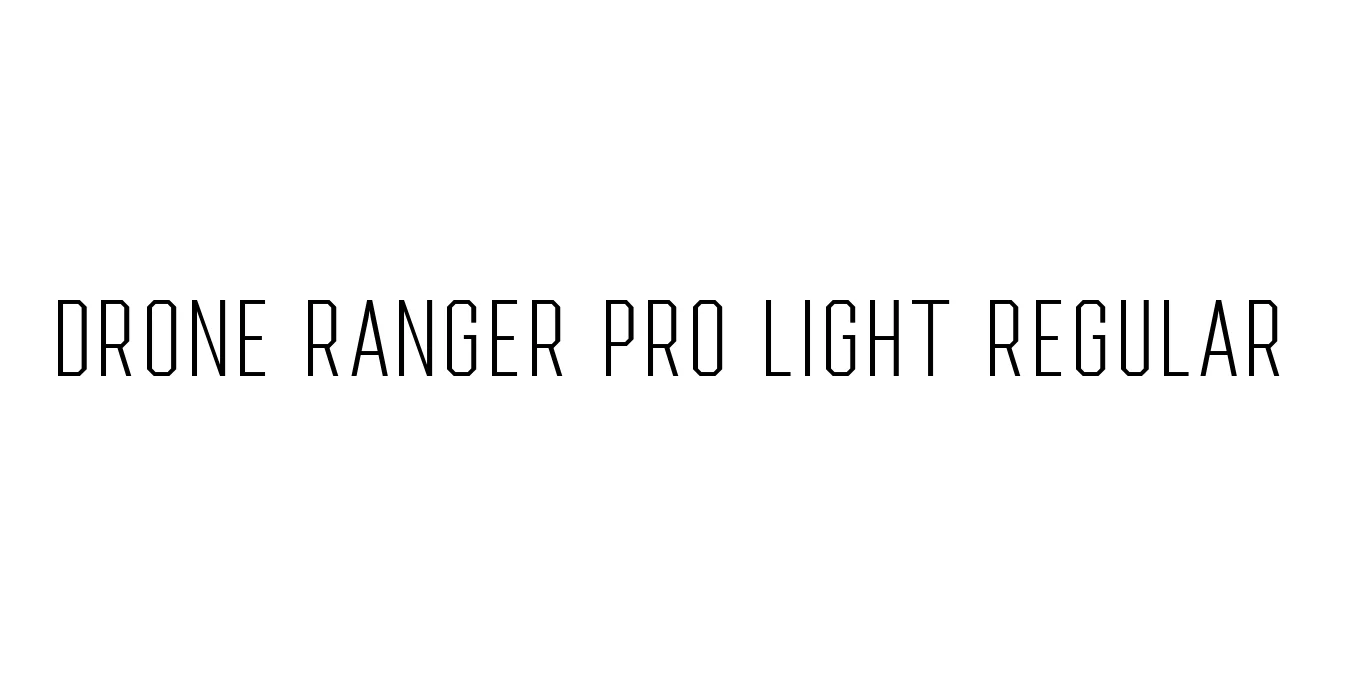
Drone Ranger Pro Light Regular
Designed by Sean Kane (SeaTypes)
Drone Ranger Pro Light Regular is a precision-engineered geometric sans-serif typeface that draws inspiration from industrial aesthetics and vintage technical lettering. Developed by Sean Kane of SeaTypes, this font is part of a larger family designed to provide a high-impact visual identity while maintaining structural clarity. Its clean, sharp lines and subtle octagonal influences make it a standout choice for designers looking to blend modern sophistication with a rugged, utilitarian feel.
As the Light weight of the "Pro" series, this version offers a more refined and airy presence compared to its bolder counterparts. It is meticulously crafted with optimized kerning and a versatile character set that supports multiple languages. Whether used as a sophisticated secondary typeface or a primary display font in minimalist layouts, Drone Ranger Pro Light Regular ensures legibility and professional polish across both digital and print mediums.
Drone Ranger Pro Light Regular Best Uses
Ideal for creating strong, masculine, and industrial brand identities.
Excellent for athletic team logos and jersey numbering due to its structural design.
Perfect for high-impact titles on tech, automotive, or lifestyle websites.
Works well for modern magazine spreads requiring a technical or architectural look.